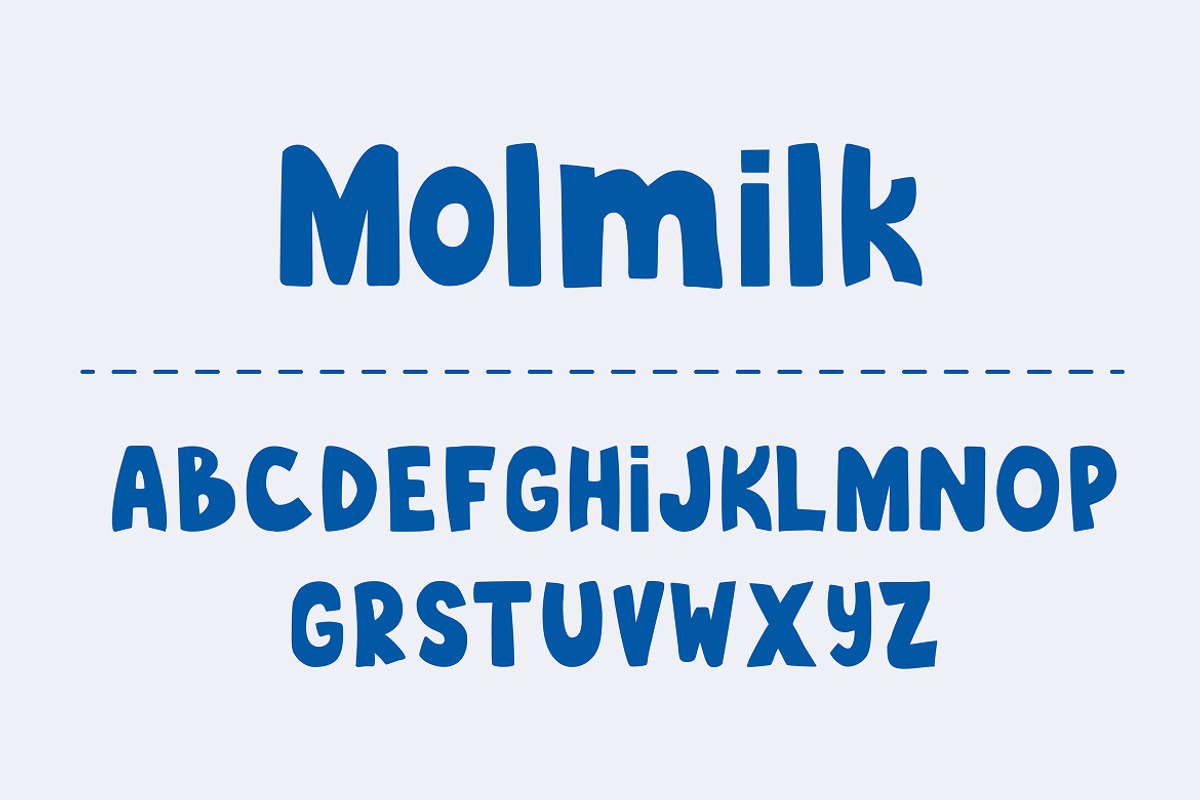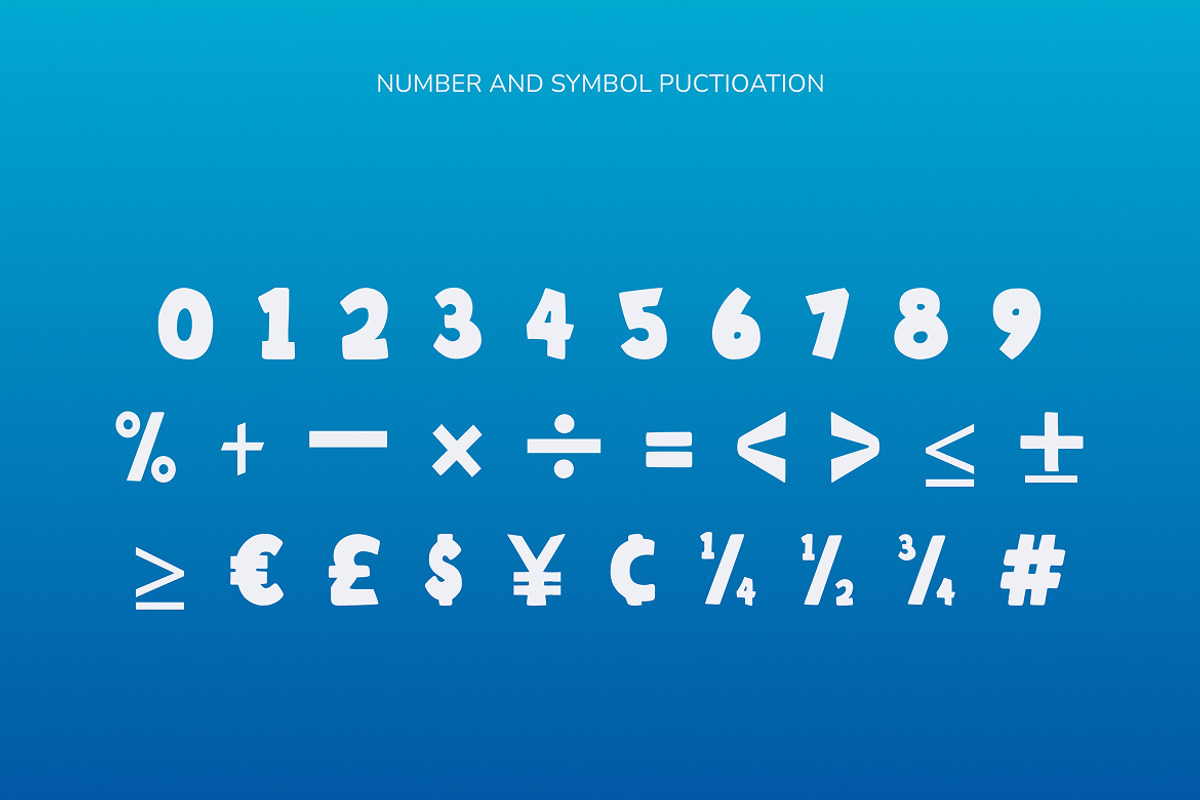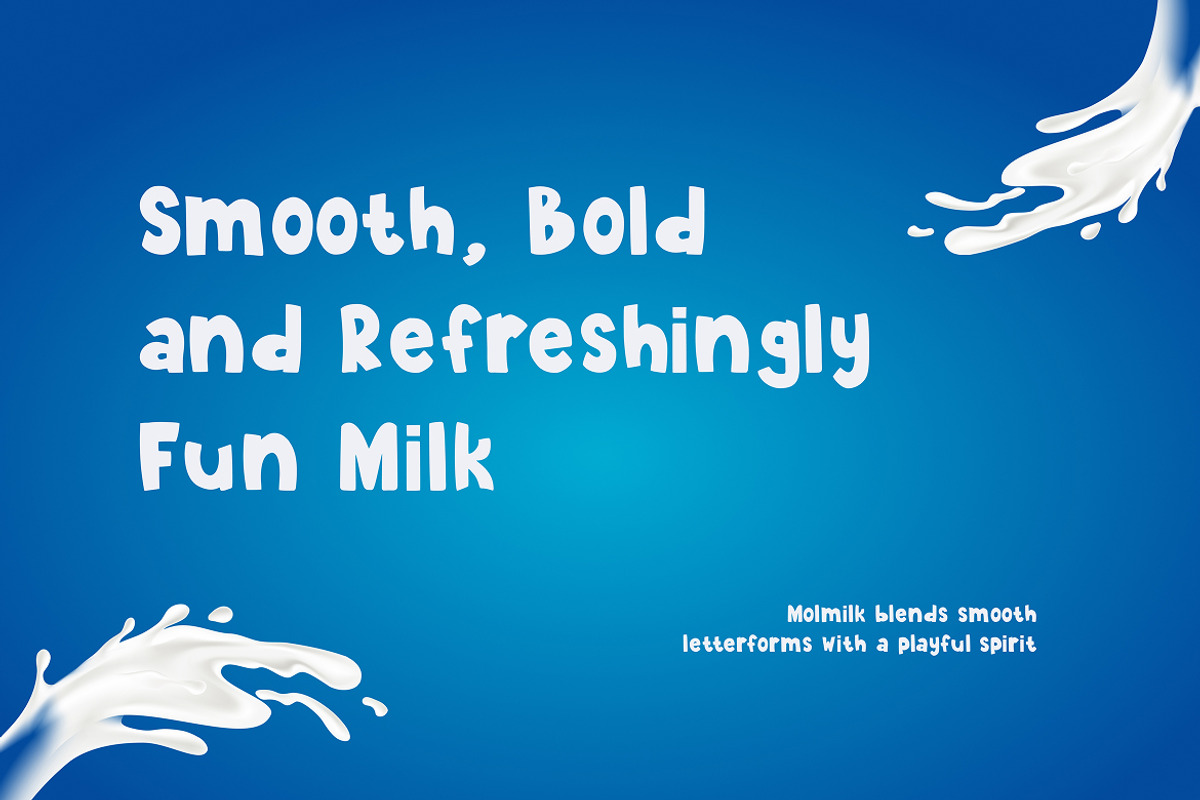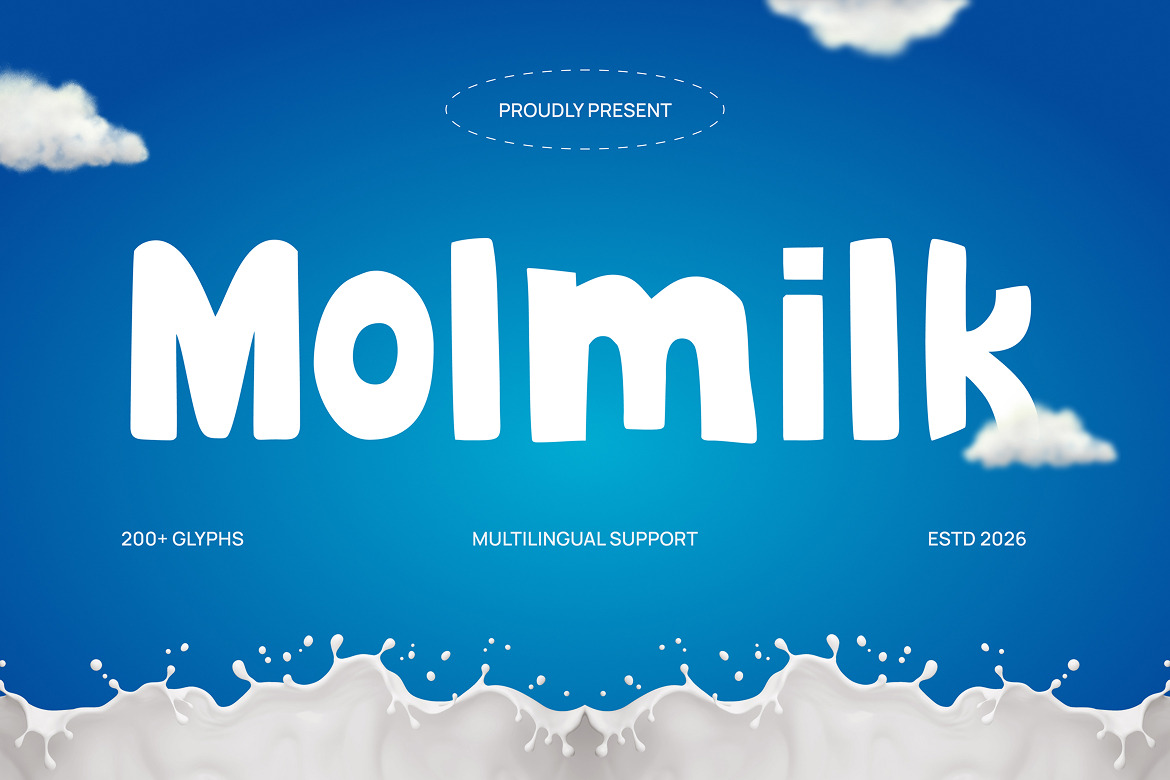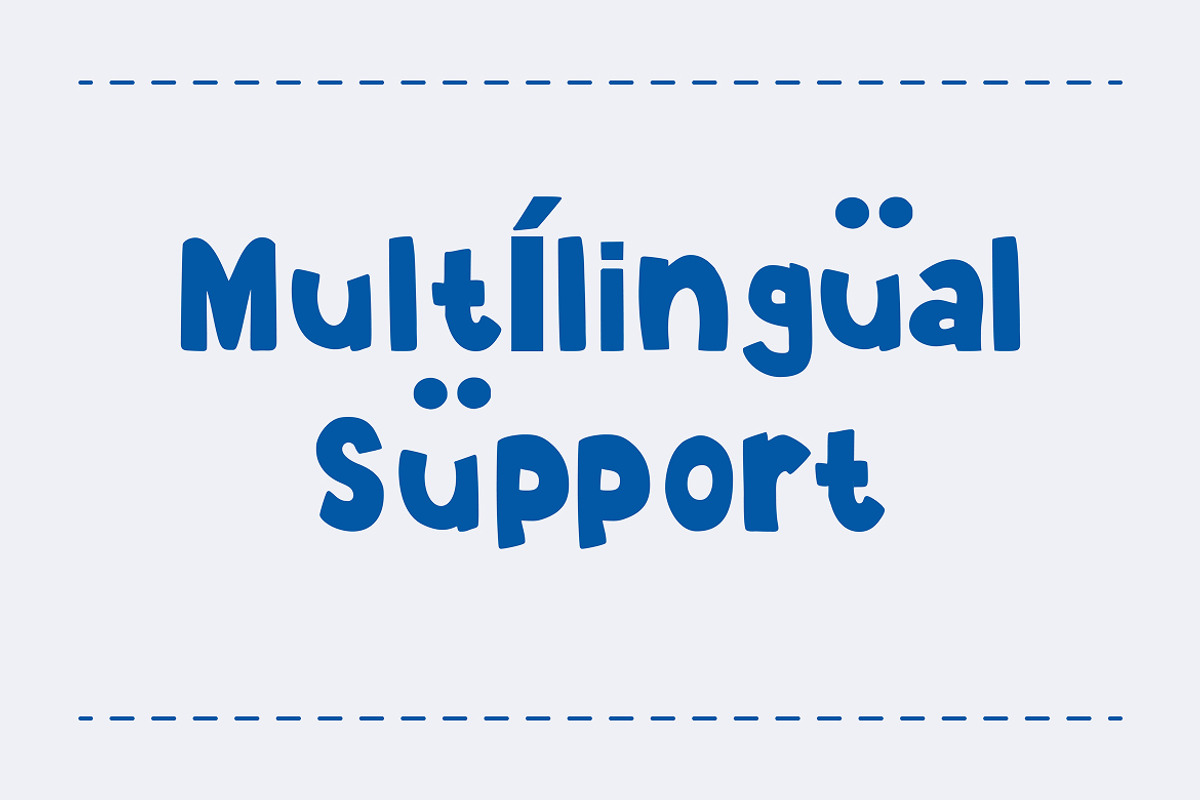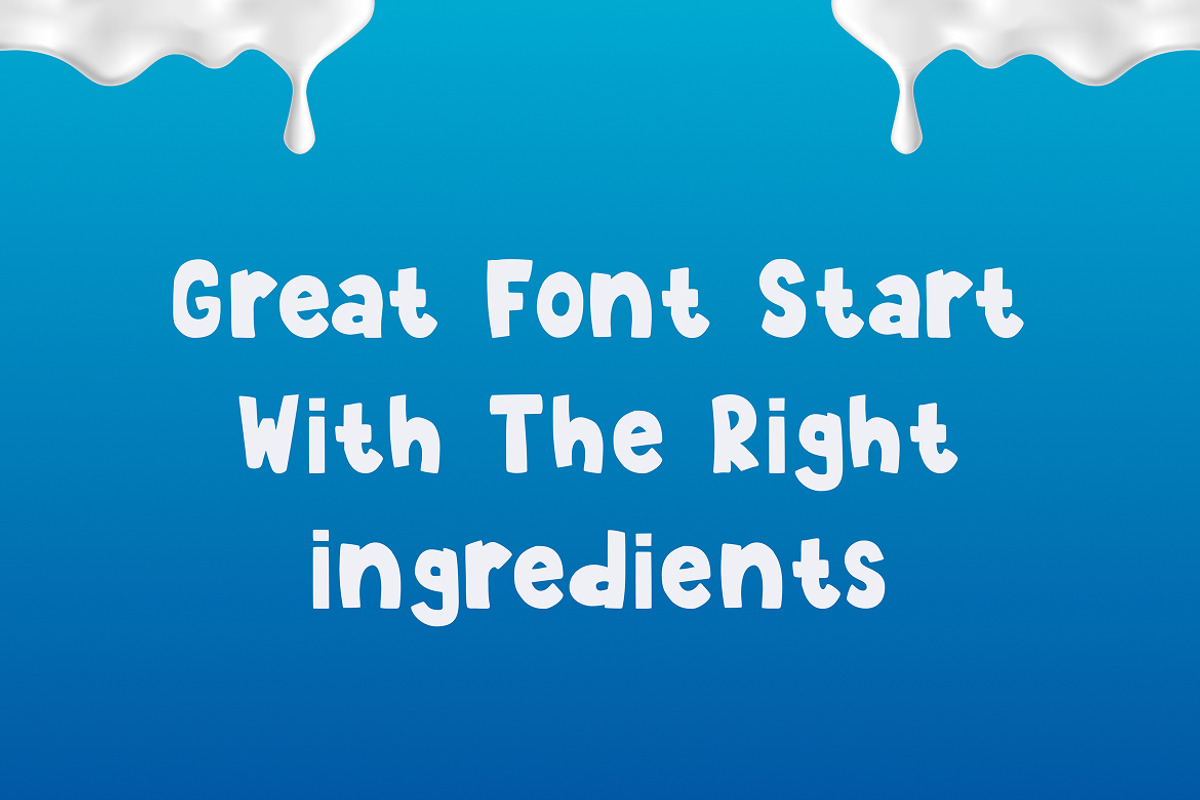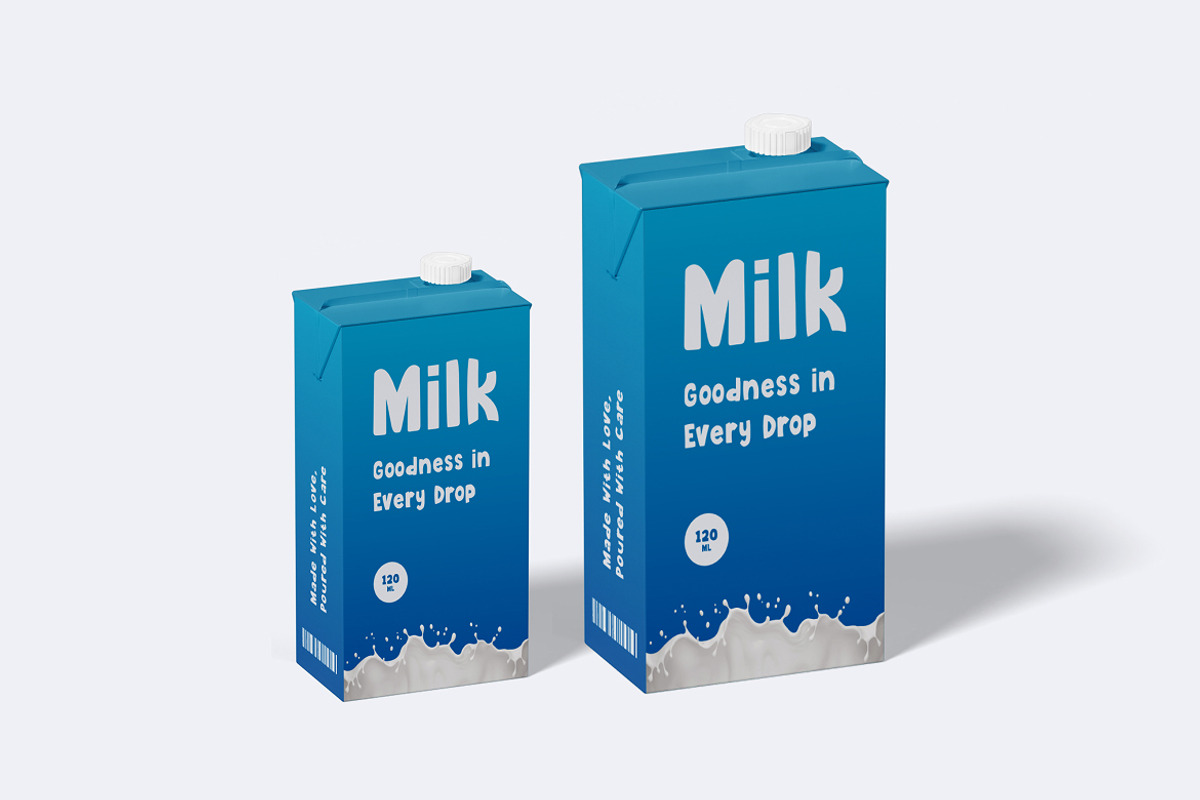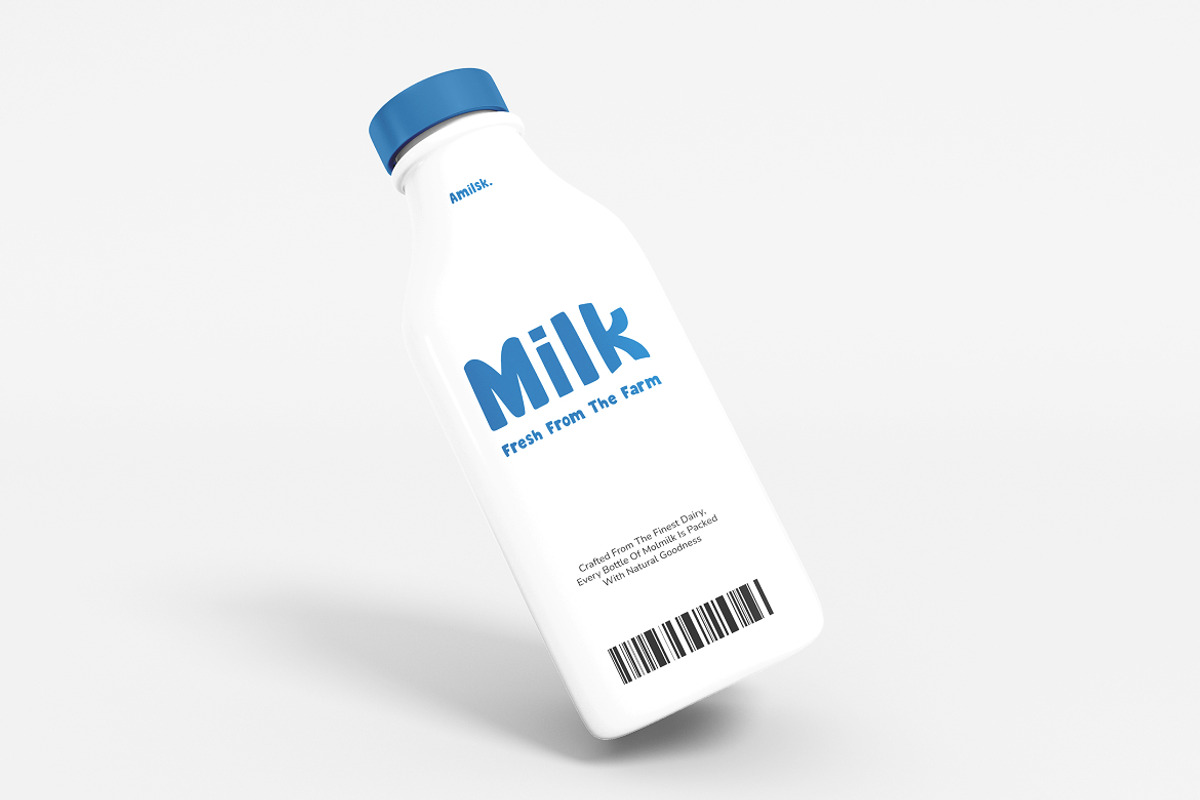
Milk Product – Molmilk Font
Milk Product – Molmilk Font is a playful and friendly display typeface designed to bring a fresh, cheerful character to food and dairy-related designs. With its rounded shapes, smooth curves, and distinctive personality, Molmilk creates a warm and approachable look that feels fun, fresh, and memorable. Perfect for projects that aim to convey freshness, quality, comfort, and a wholesome feel.
Full Character Set: Uppercase, lowercase, numbers, symbols, and punctuation
From milk packaging to dairy product branding, Molmilk adds a playful and approachable character to every project. Its rounded appearance and friendly personality make it ideal for logos, food packaging, labels, product designs, posters, social media visuals, advertisements, children's products, and fresh food branding.